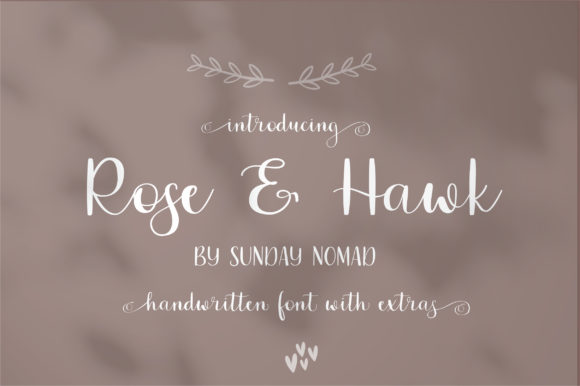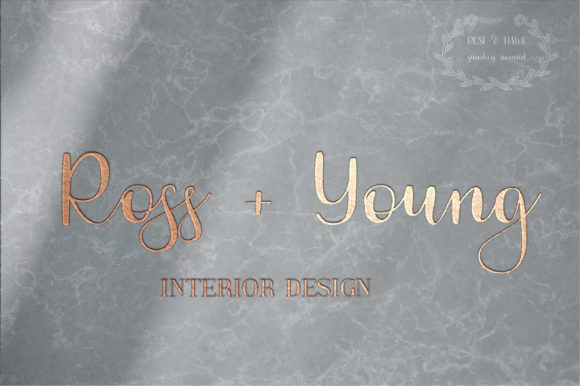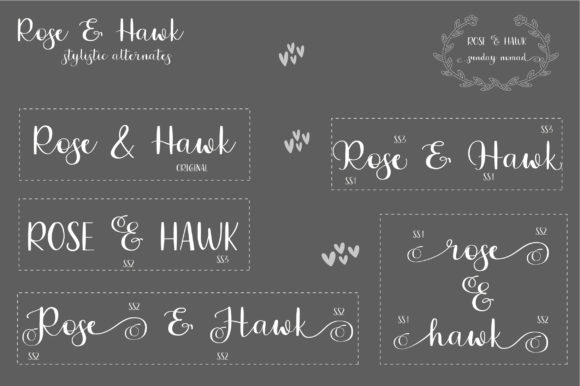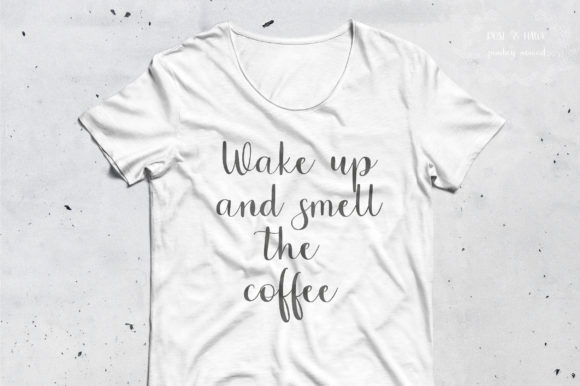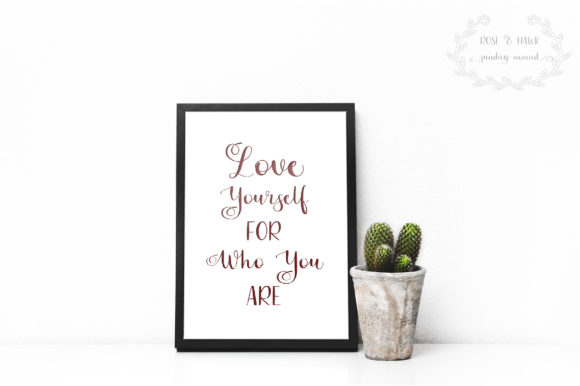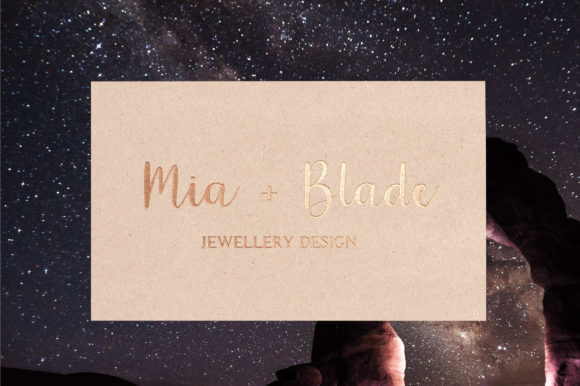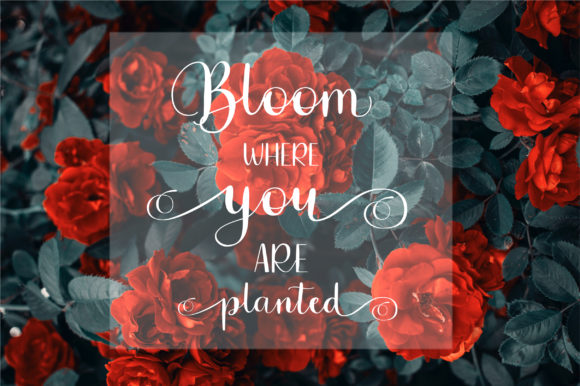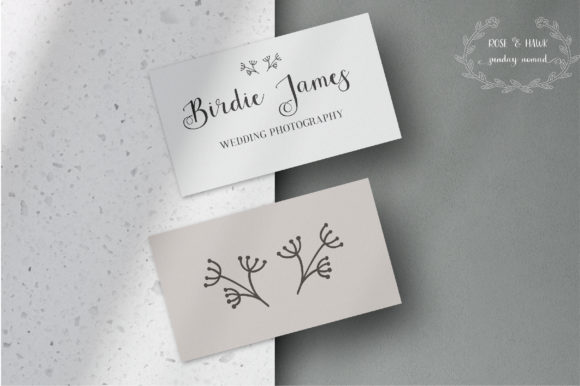
Rose & Hawk Font
Rose & Hawk is a cute and casual handwritten font with an incredibly friendly feel. It features gorgeous swashes and ligatures that make this script incredibly versatile. Whether you’re looking for fonts for Instagram or calligraphy scripts for DIY projects, Rose & Hawk will turn any creative idea into a true piece of art!